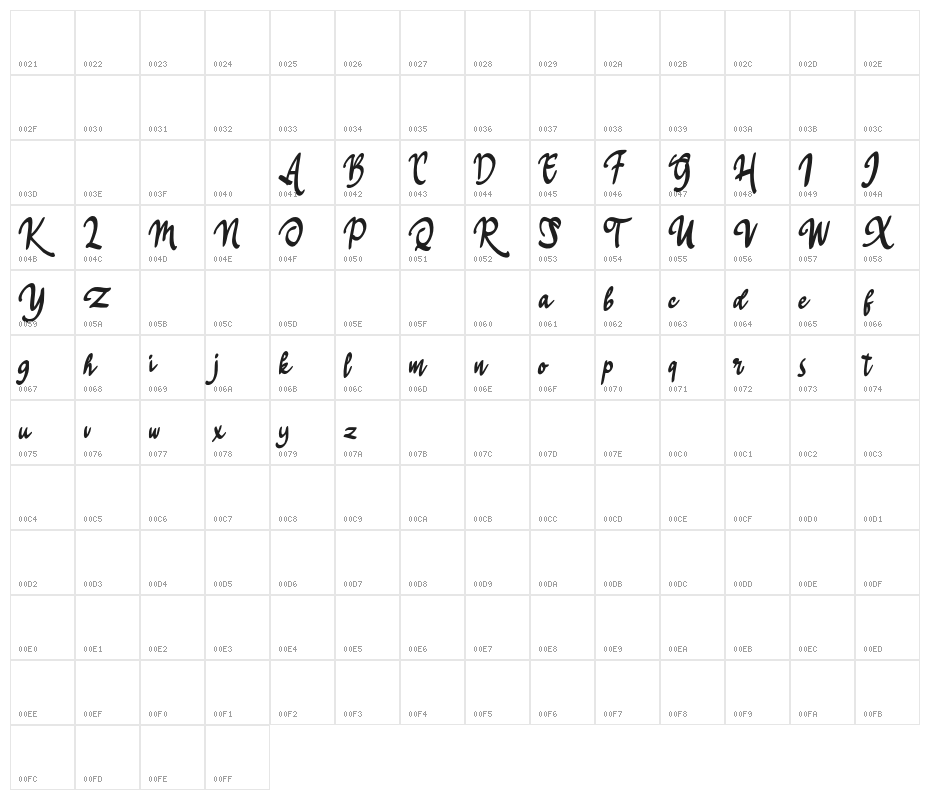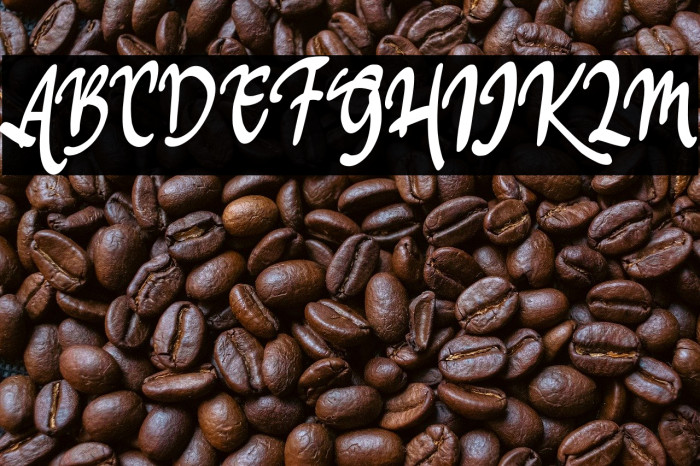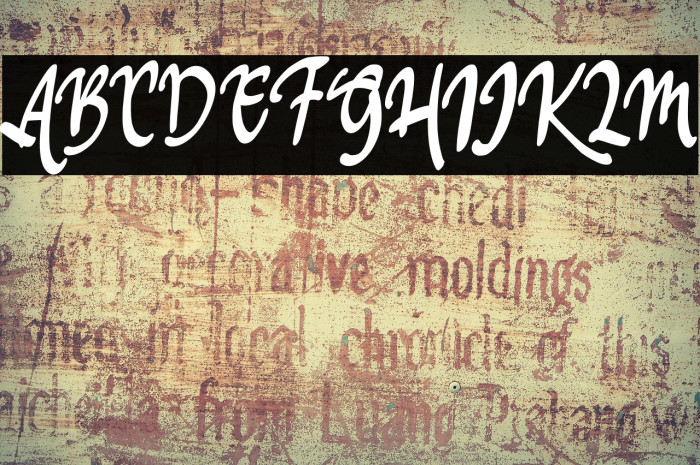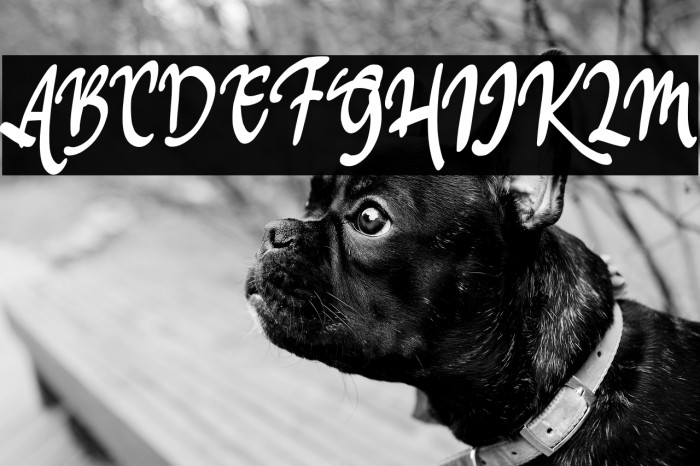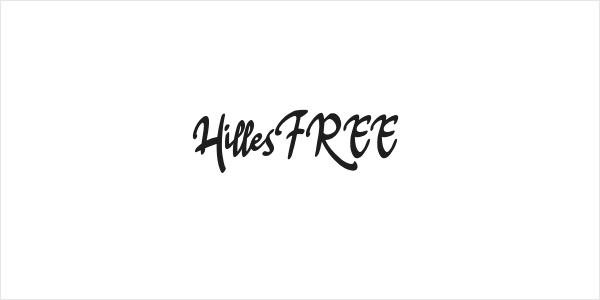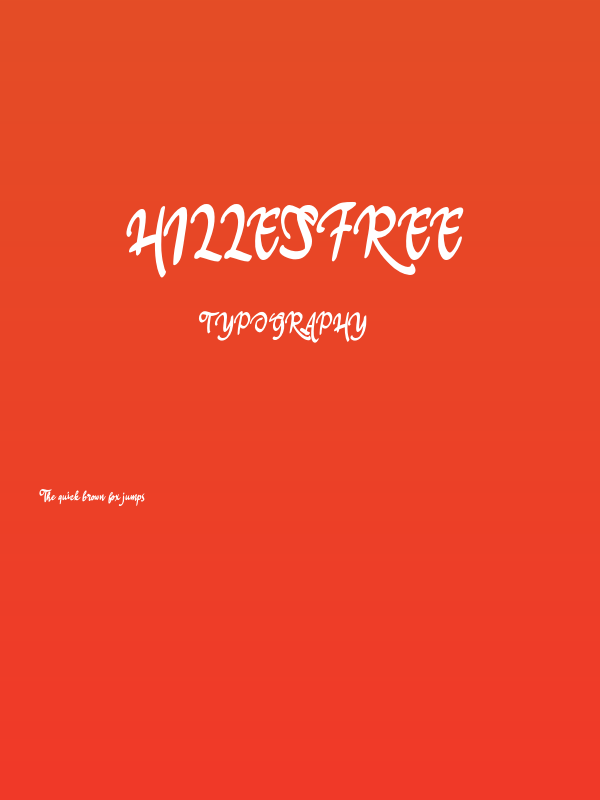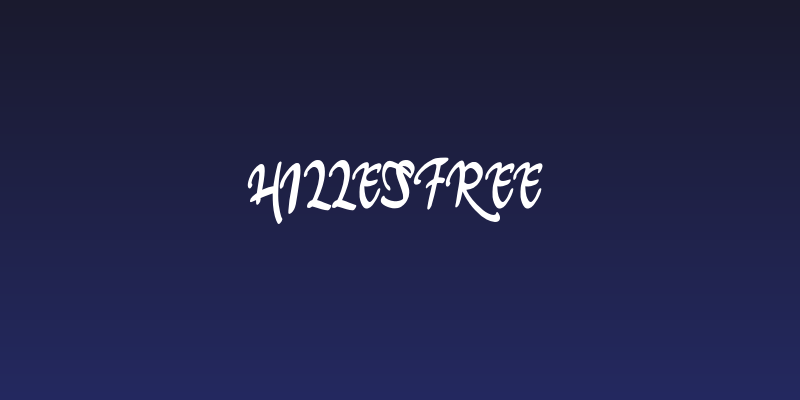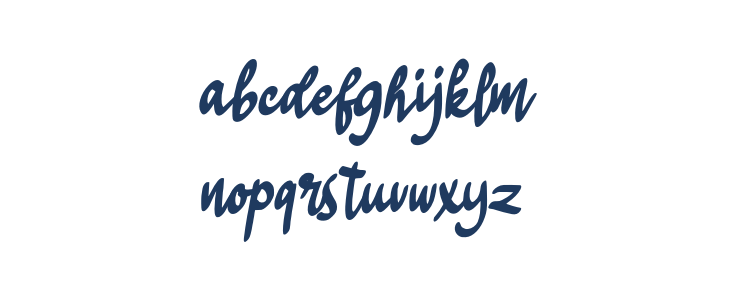
HillesFREE Font
HillesFREE Description
This font features a bold and expressive script style, characterized by its flowing, cursive letterforms. The uppercase letters are ornate with sweeping curves and flourishes, while the lowercase letters maintain a cohesive, connected appearance. The overall design exudes a sense of elegance and dynamism, making it suitable for creative and artistic applications. The font's strokes are thick and consistent, providing a strong visual impact. It is well-suited for projects that require a touch of sophistication and flair.
| Proposed Projects | Ideal for wedding invitations, branding, logo design, and artistic posters. |